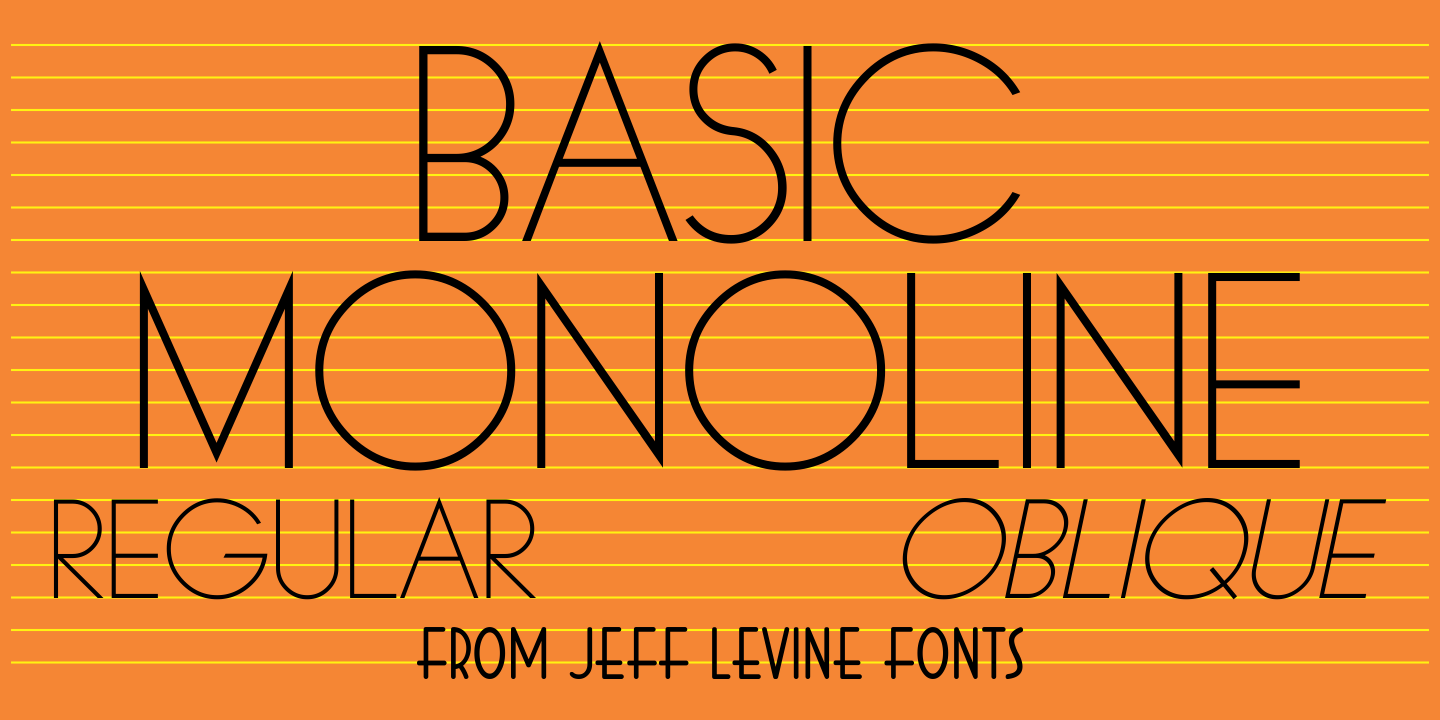
Basic Monoline JNL Font is ideal for minimalist branding projects, clean web design layouts, modern architectural signage, contemporary product packaging, technical documentation, simple user interfaces, streamlined corporate materials, educational publications, medical device labeling, and professional presentation graphics. This refined typeface excels in applications where clarity, consistency, and understated elegance need to be communicated with precise uniformity and readable simplicity.
What makes Basic Monoline JNL Font exciting is its masterful demonstration that simplicity can be profoundly powerful through its consistent stroke weight that creates perfect visual harmony across all characters. The font embodies the essence of modern design philosophy with its clean, unadorned letterforms that prioritize function while maintaining subtle personality. Its uniform line weight and carefully balanced proportions create an atmosphere of professional reliability and contemporary sophistication that resonates with audiences who appreciate thoughtful, purposeful design over unnecessary decoration.
The Basic Monoline JNL Font family typically includes Regular and Bold weights, each maintaining the signature consistent stroke characteristics that define monoline typography. Some versions offer Italic variants and condensed styles that preserve the uniform weight while providing additional layout flexibility. The family may also include extended character sets with international support and specialized symbols for technical and professional applications.
Whether you're creating clean brand identities, professional documentation, or contemporary design solutions, Basic Monoline JNL Font Free Download provides the perfect foundation for projects requiring timeless simplicity and functional elegance. Its monoline character and refined styling make it an essential tool for designers working in corporate, medical, and technology sectors where clear communication and professional credibility are paramount for effective information delivery and brand trustworthiness.